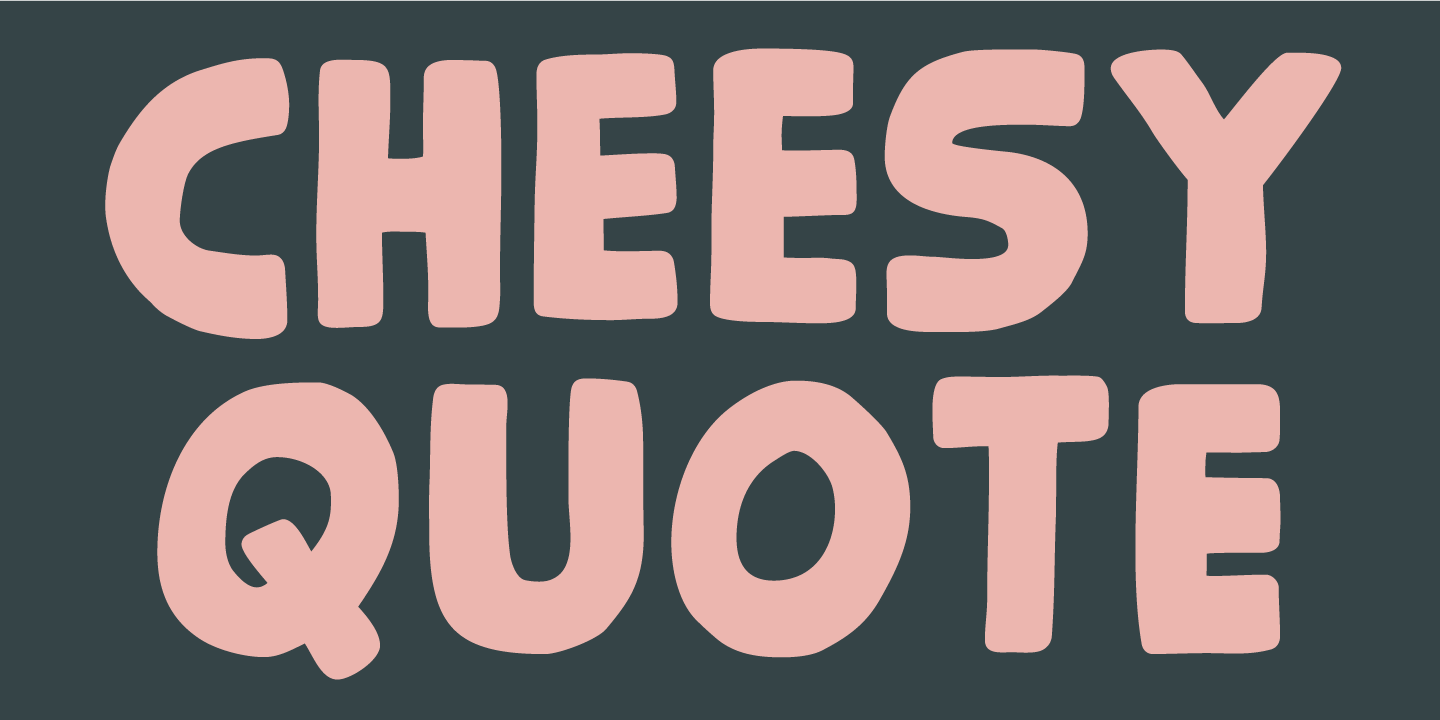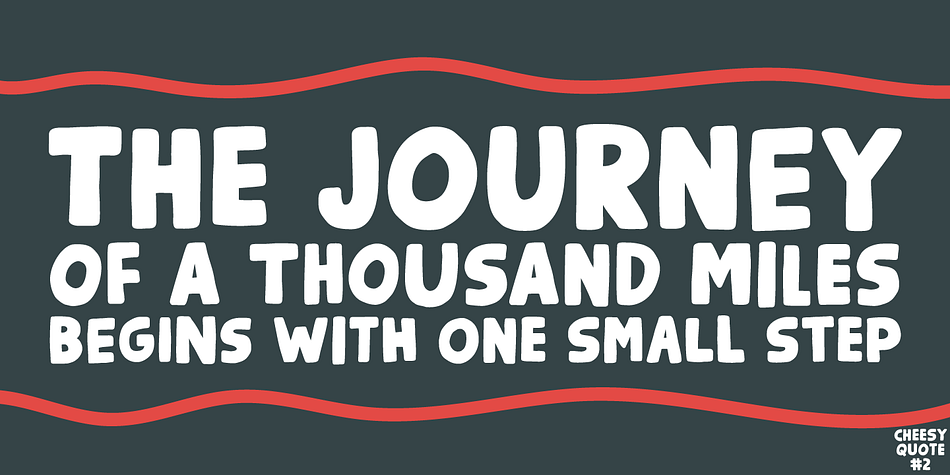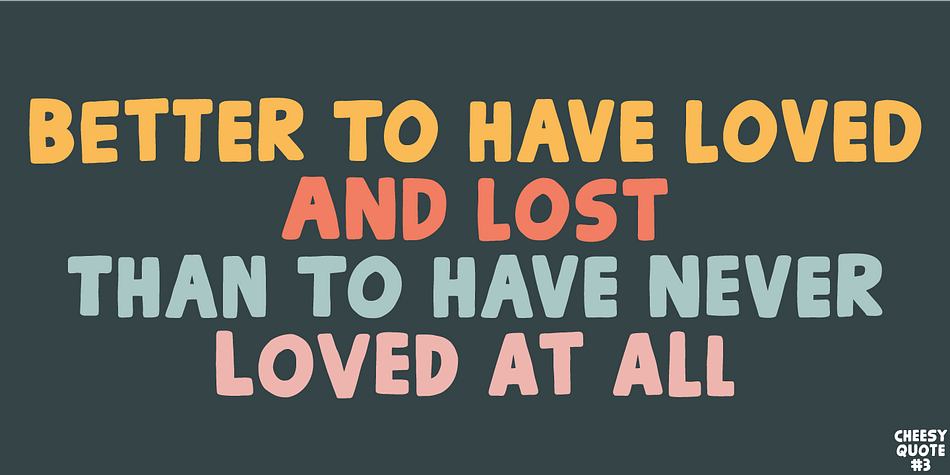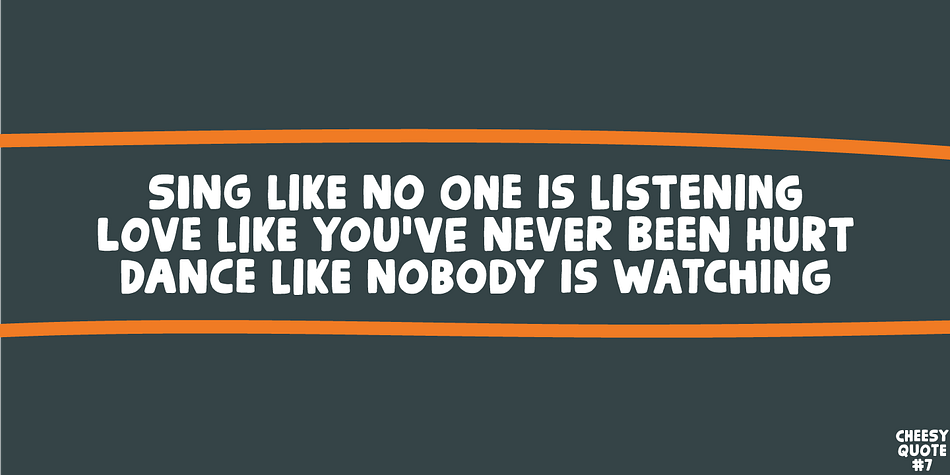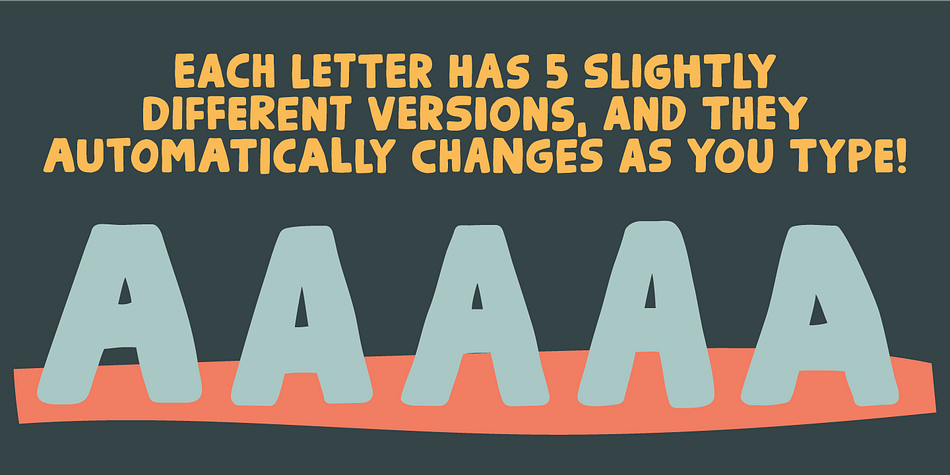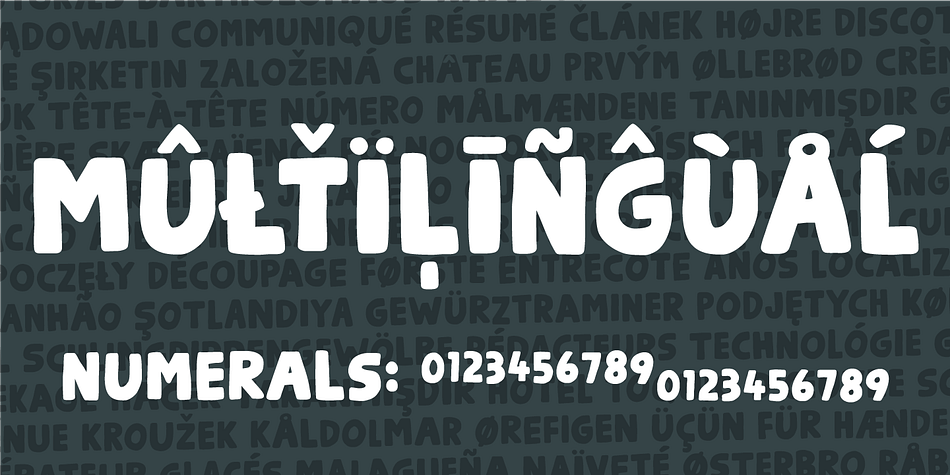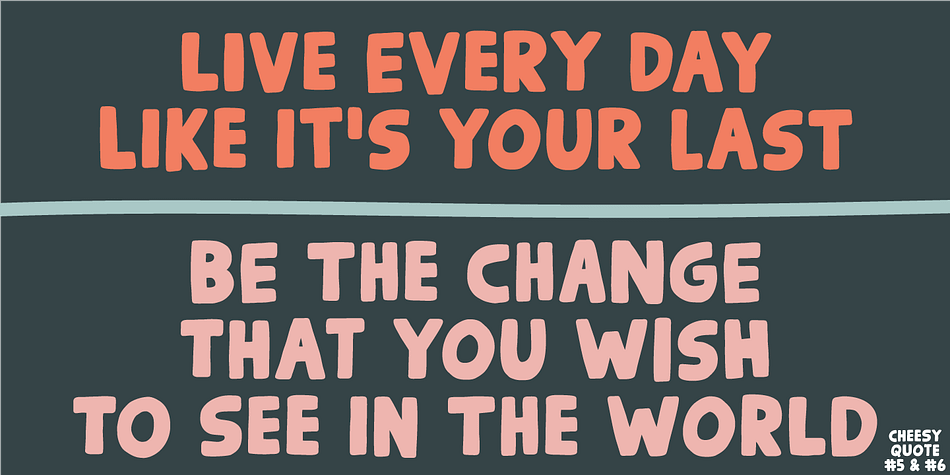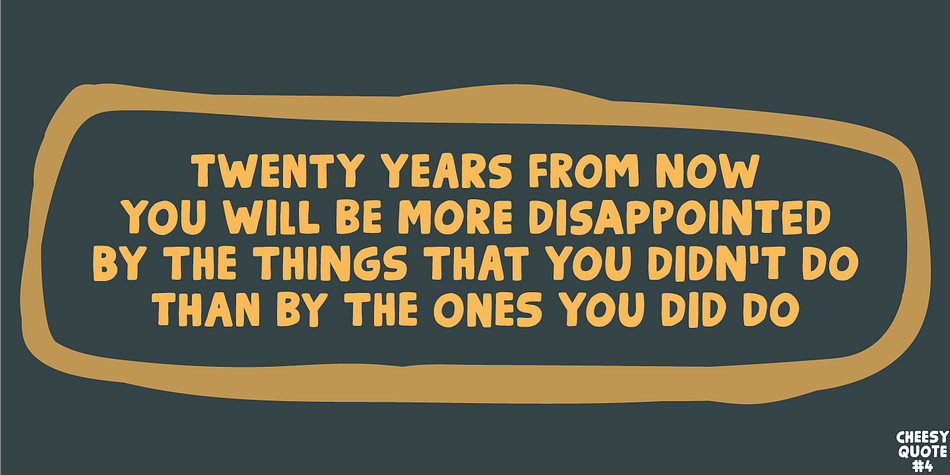
Cheesy Quote
Designed by Jakob Fischer, Cheesy Quote is a display sans and hand display font family. This typeface has two styles and was published by Bogstav.
I’m not trying to be sarcastic or ironic. But after looking at fridge magnets, postcards, posters and stickers with clever words about love and happiness, I suddenly found them all cheesy. You may have guessed it by now: I’m not into clever words like those…but I do respect if they brighten someones’s life.
This font, however, was made to brighten people’s life by being great as a soft, handmade and organic headline font! Use for your favourite quotes, or whatever needs a legible and clear presentation!